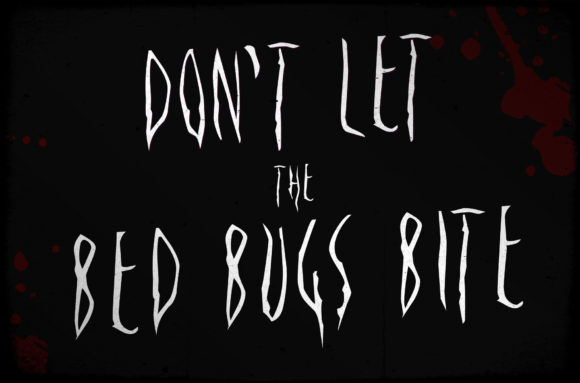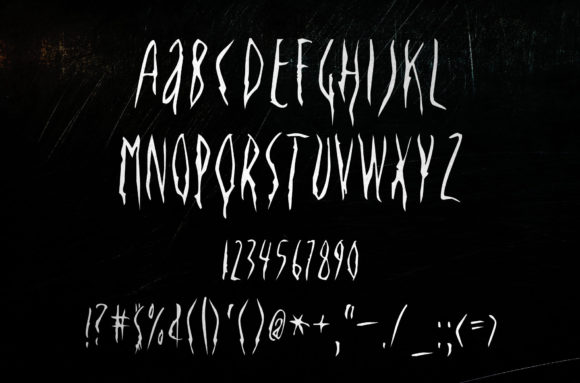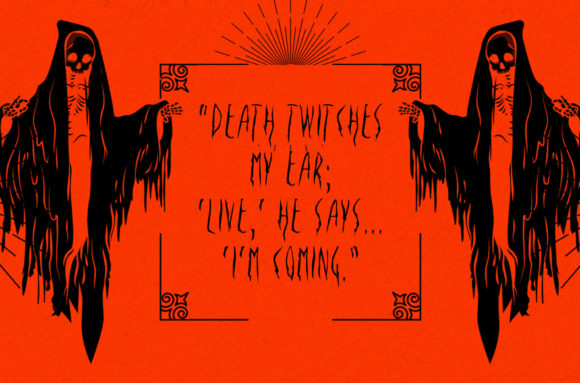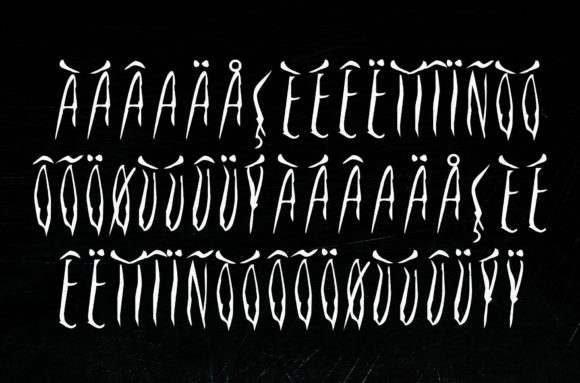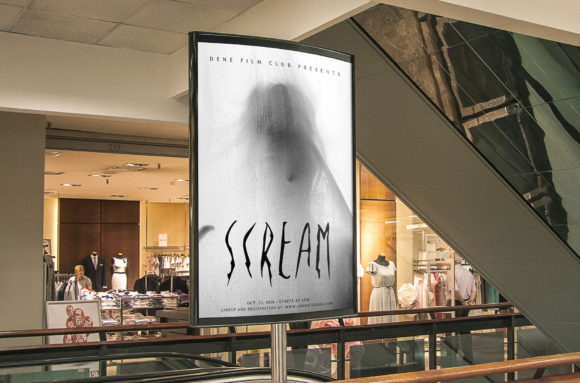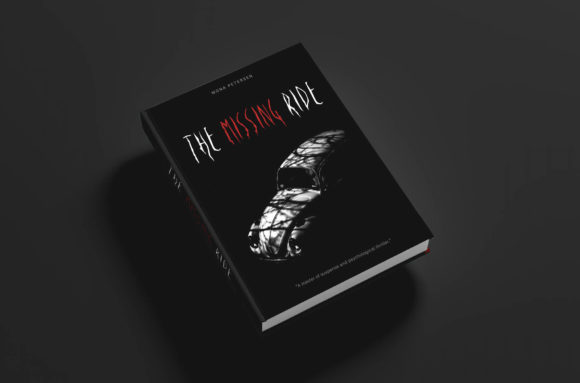
The Fright Font: Unleashing Your Creativity with a Spine-Chilling Display Font
The Fright Font is a cool and horror-looking display font that instantly caught my attention with its neat and unique vibe. Its eerie yet elegant design makes it perfect for a wide range of creative projects, from spooky Halloween designs to bold and edgy branding materials.
An Honest Review of Fright Font
What I Love About Fright Font ✨
- 👻 Unique and eye-catching design that adds a touch of horror and mystery to any project
- 💀 Perfect for display text, titles, and headings, making it ideal for posters, flyers, and social media graphics
- 📚 Highly legible, even in smaller sizes, making it versatile for various design applications
- 🎃 Great for seasonal designs, especially for Halloween and horror-themed projects
- ⚠️ May not be suitable for body text or lengthy paragraphs due to its bold and attention-grabbing nature
- ⚠️ Some characters may not work well in all contexts, requiring careful consideration when pairing with other fonts
The Backstory of Fright Font
The Fright Font was designed by a team of creatives who wanted to create a font that would evoke a sense of mystery and horror. Inspired by classic horror movies and haunted mansions, they crafted a font that would add a touch of eeriness to any design. The result is a unique and captivating font that’s perfect for designers, crafters, and creative hobbyists.
| Font Name | Fright Font |
| Author | denestudios |
| What type of projects is Fright Font best suited for? | Fright Font is perfect for display text, titles, and headings in projects that require a bold and horror-inspired look, such as Halloween designs, horror-themed branding, and spooky posters. |
| Can I use Fright Font for body text? | While Fright Font is highly legible, it may not be the best choice for body text due to its bold and attention-grabbing nature. It’s better suited for display text and headings. |
| Is Fright Font available in different styles? | Yes, Fright Font comes with various stylistic alternates, glyphs, and OpenType features that allow you to experiment with different looks and styles. |
With its unique and captivating design, Fright Font is sure to add a touch of horror and mystery to your designs. Whether you’re a designer, crafter, or creative hobbyist, this font is perfect for creating outstanding designs that will leave a lasting impression.